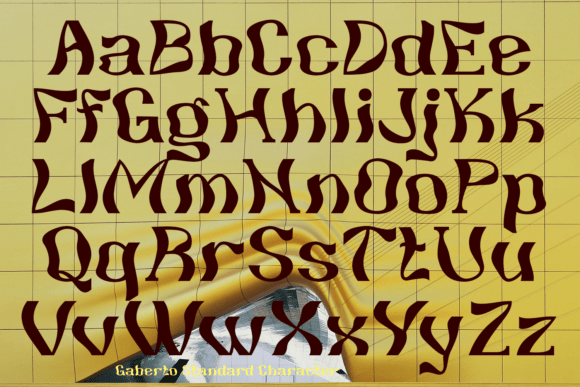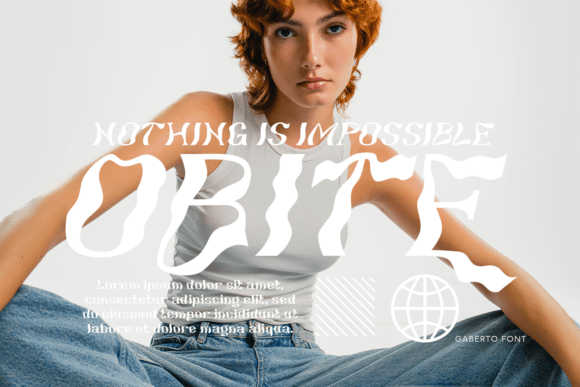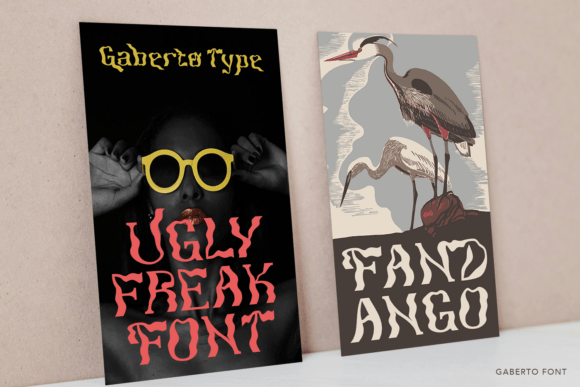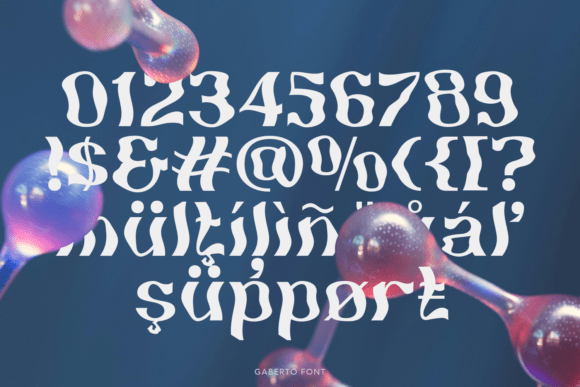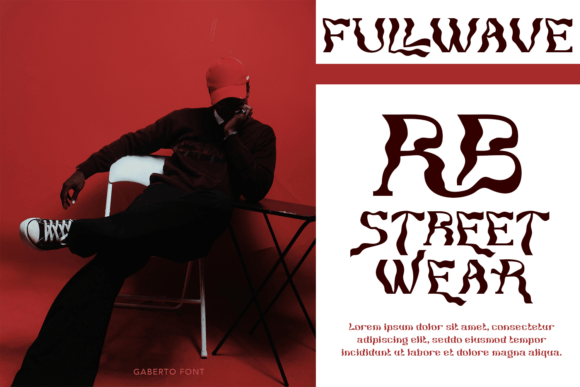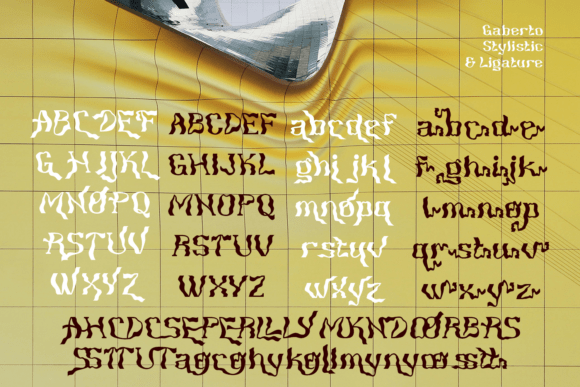
Introducing Gaberto Font: Elevate Your Designs with Effortless Style
Gaberto is a bold display font that embodies the perfect blend of modern minimalism and sophistication. With its wave-inspired rhythm, sleek simplicity, and high-contrast details, Gaberto is designed to make a statement in both modern and classic settings. This versatile typeface is ideal for creatives who want to add a touch of elegance and impact to their projects.
Key Features of Gaberto Font
- Wave-Inspired Rhythm: Gaberto’s unique wave-inspired rhythm sets it apart from other fonts. This distinctive feature adds a touch of dynamism and movement to your designs, making them more engaging and attention-grabbing.
- Sleek Simplicity: Gaberto’s clean lines and minimalist approach make it perfect for modern designs. The font’s simplicity ensures that your message is conveyed clearly and effectively, without any distractions.
- High-Contrast Details: The high-contrast details in Gaberto add a level of sophistication and elegance to your designs. This feature is particularly useful for creating visual interest and hierarchy in your typography.
Perfect for High-End Fashion, Cultural Projects, and Contemporary Branding
Gaberto’s stylish curves and clean lines make it an ideal choice for high-end fashion, cultural projects, and contemporary branding. The font’s versatility ensures that it can be used across a wide range of applications, including:
- Product Packaging: Gaberto’s bold and eye-catching design makes it perfect for product packaging. The font’s high-contrast details and sleek simplicity ensure that your product stands out on store shelves.
- Posters and Invitations: Gaberto’s wave-inspired rhythm and elegant curves make it ideal for posters and invitations. The font’s versatility ensures that it can be used for a wide range of events and occasions.
- Logos and Labels: Gaberto’s bold and distinctive design makes it perfect for logos and labels. The font’s high-contrast details ensure that your brand’s message is conveyed clearly and effectively.
- Quotes and Editorials: Gaberto’s elegant curves and clean lines make it ideal for quotes and editorials. The font’s sophistication and refinement ensure that your content is presented in a stylish and engaging manner.
Designed for Creatives Who Value Sophistication and Modern Minimalism
Gaberto is designed for creatives who want to explore and combine sophistication with modern minimalism. The font’s versatility and elegance make it perfect for designers who want to elevate their projects with effortless style.
Whether you’re designing for digital platforms or printed materials, Gaberto delivers a refined balance of elegance and impact. The font’s clean lines, stylish curves, and high-contrast details ensure that your designs are visually appealing and engaging.
Why Choose Gaberto Font?
- Versatility: Gaberto is a versatile font that can be used across a wide range of applications, from product packaging to editorials.
- Elegance: Gaberto’s elegant curves and clean lines ensure that your designs are sophisticated and refined.
- Impact: Gaberto’s bold and eye-catching design ensures that your message is conveyed clearly and effectively.
- Modern Minimalism: Gaberto’s sleek simplicity and high-contrast details make it perfect for modern designs.
Gaberto font is a bold display font that embodies the perfect blend of modern minimalism and sophistication. With its wave-inspired rhythm, sleek simplicity, and high-contrast details, Gaberto is designed to make a statement in both modern and classic settings. Whether you’re a designer or crafter, Gaberto is the perfect choice to elevate your projects with effortless style.